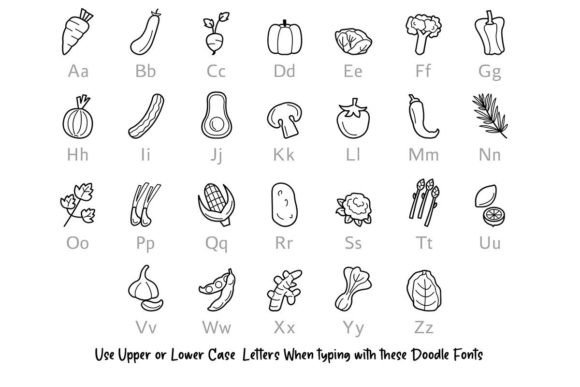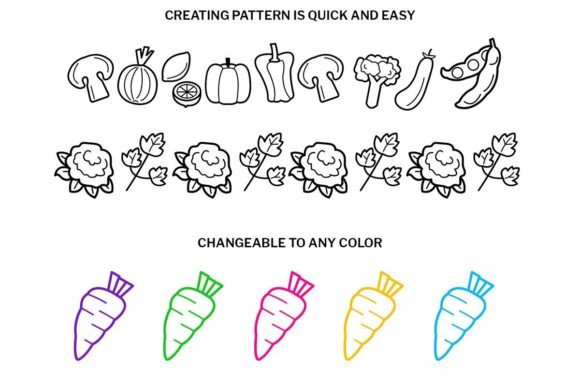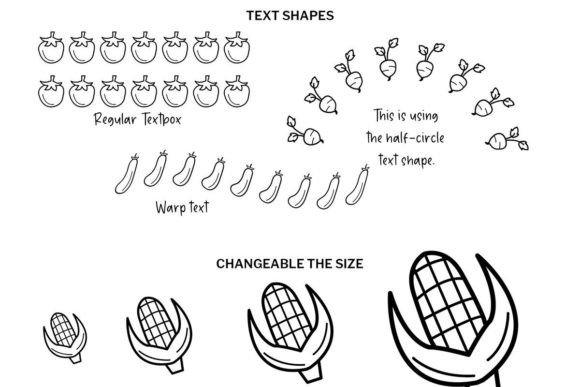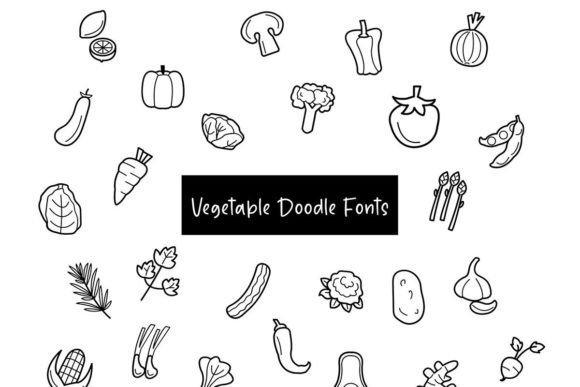
About Vegetable Doodle Font
The Vegetable Doodle font is a delightful dingbat font that brings a touch of fun and cuteness to your projects. As the name suggests, this font is filled with doodles and illustrations of various vegetables, making it the perfect choice for projects related to cooking, healthy eating, gardening, or any design that celebrates the beauty of nature’s bounty.
With its versatile collection of vegetable-themed doodles, the Vegetable Doodle font offers endless possibilities for your creative endeavors. Whether you’re working on craft projects, designing invitations, creating planner layouts, or even designing activity books for children, this font provides a wide pool of charming graphics to add a playful and whimsical touch to your designs.
One of the great advantages of the Vegetable Doodle font is its versatility. You can use it in various projects such as recipe cards, kitchen labels, menu designs, or food-related blog posts to add visual interest and a unique twist. The adorable vegetable illustrations can also be used as decorative elements in scrapbooking, card making, or DIY projects to create delightful and personalized creations.
For planners and diaries, the Vegetable Doodle font can bring a cheerful and lively vibe to your pages. You can incorporate the doodles to mark special events, create cute icons for different activities or tasks, or even design themed monthly spreads that celebrate seasonal vegetables. The versatility of the font allows you to customize your planners and diaries to reflect your personality and interests.
Activity books and educational materials can also benefit from the Vegetable Doodle font. You can use the vegetable illustrations to create coloring pages, puzzles, or flashcards that engage and entertain children while teaching them about healthy eating habits and the importance of vegetables in their diet. The playful nature of the font will make learning a fun and enjoyable experience for young minds.
Furthermore, the Vegetable Doodle font can be used in social media graphics, blog posts, or websites related to cooking, nutrition, or gardening. By incorporating the charming vegetable doodles into your visuals, you can add a unique and eye-catching element that will capture the attention of your audience and enhance your content.
In conclusion, the Vegetable Doodle font is a fun and cute dingbat font that brings a touch of whimsy to your projects. Its versatility makes it suitable for a wide range of craft projects, designs, planners, diaries, activity books, and more. Whether you’re creating food-related designs, educational materials, or simply adding a playful touch to your creations, the Vegetable Doodle font is sure to inspire creativity and bring joy to your designs.